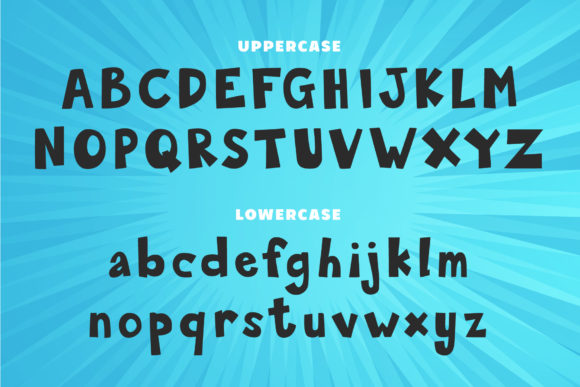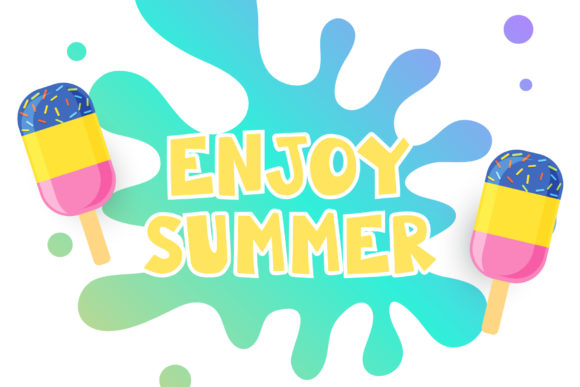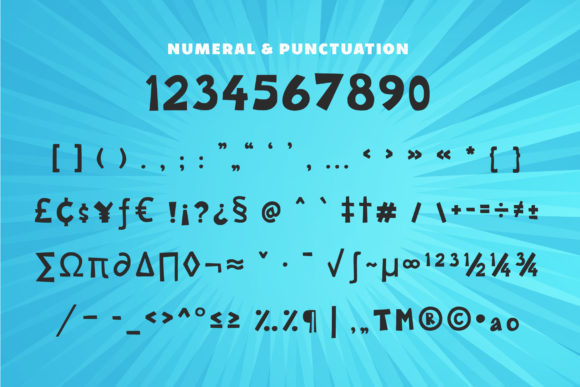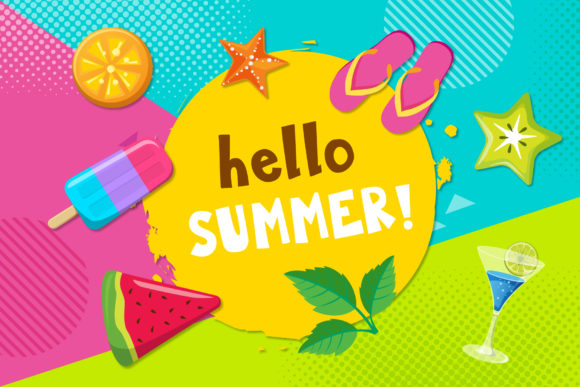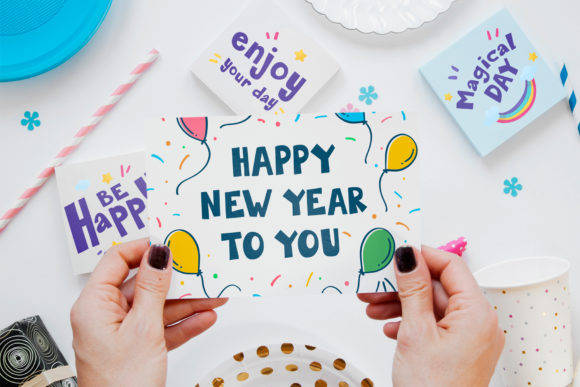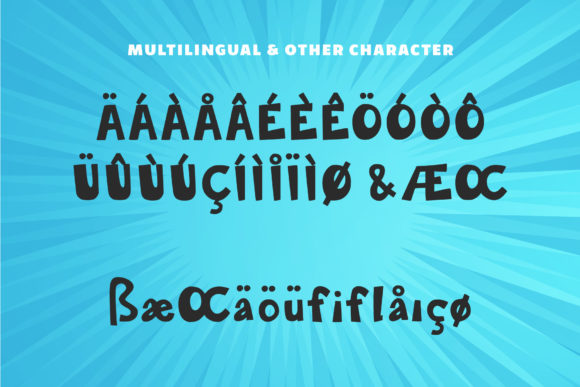
Introduction to Shaped Corner Font
Shaped Corner is a fun and dynamic display font that’s perfect for kid’s projects and much more.
Get inspired by its playful charm .
Key Features of Shaped Corner Font
Why Choose Shaped Corner Font?